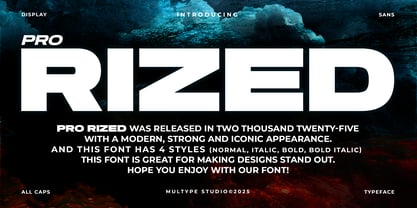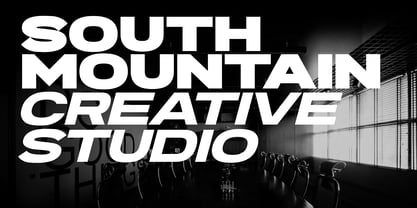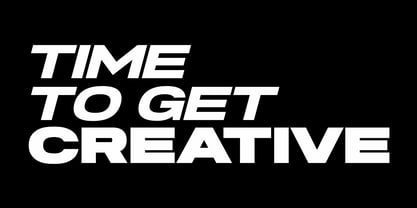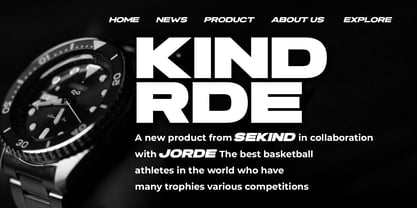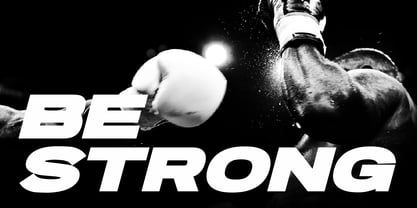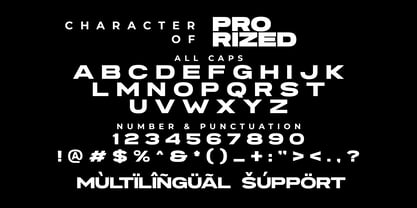
Pro Rized
von Multype Studio
Die Schriftfamilie Pro Rized wurde von Mulia Yanto entworfen und von Multype Studio veröffentlicht. Pro Rized enthält 4 Stile und Familienpaketoptionen.
Pro Rized is a strong, bold sans serif font made for modern sports, racing, and tech-inspired branding with a futuristic display style, designed for impactful headlines and modern branding. With its strong geometric shapes and dynamic proportions, this typeface delivers a sense of power, speed, and confidence. Pro Rized includes 4 styles ( Regular, Italic, Bold, and Bold Italic ) making it versatile for logos, posters, sports designs, and esports visuals. Perfect for brands that want to stand out with a modern, iconic, and professional appearance. Bring your designs to life with the bold energy of Pro Rized! What’s Included : Pro Rized All Caps ( Regular, Italic, Bold, and Bold Italic ), Numbers & Symbols, Works on PC / Mac, Simple installations Accessible in the ( Adobe Illustrator, Adobe Photoshop, Adobe InDesign, even work on Microsoft Word ), PUA Encoded Characters, Fully accessible without additional design software, Multilingual support. Thank you for your purchase! Hope you enjoy with our font!
Designer: Mulia Yanto
Herausgeber: Multype Studio
Foundry: Multype Studio
Eigentümer des Designs: Multype Studio